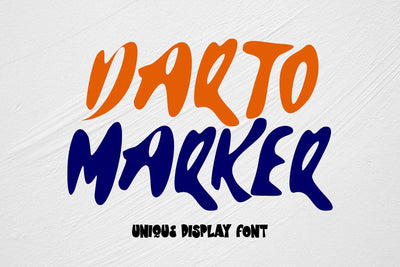
Darto Marker - Unique Display Font
"Darto Marker" is a distinctive display font characterized by its quirky and unique characters. Fonts with quirky elements often feature unconventional or playful letterforms, adding a touch of whimsy and individuality to the typography. "Darto Marke" is well-suited for creative projects where a non-traditional and eye-catching typographic style is desired, making it an excellent choice for designs that aim to stand out with a touch of playfulness.
- Graffiti Characters looks